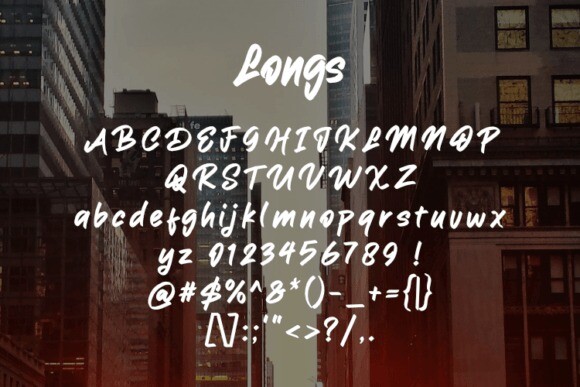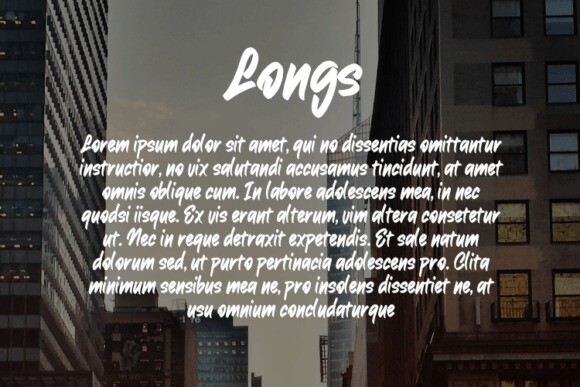
Longs Font
Longs Font, a distinct and stylish font. This captivating typeface offers a perfect solution for enhancing the visual appeal of your clothing designs, t-shirts, and other merchandise. Versatile by nature, Longs accentuates your designs brilliantly on any platform, regardless of the software you use. The font package is comprehensive, coming with both OTF and TTF files for smooth and flexible application. Experience the striking fusion of sophistication and flair with Longs and give your designs a voice that resonates.